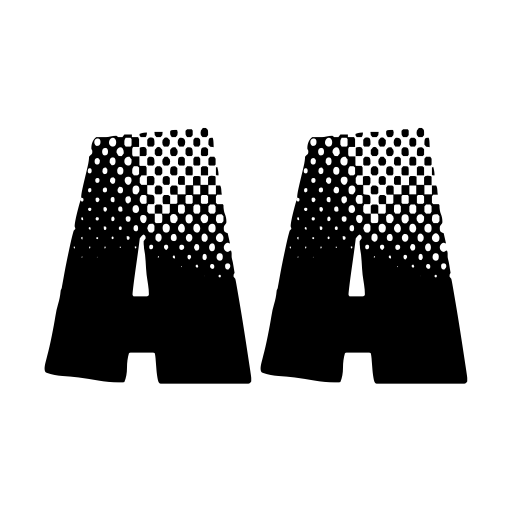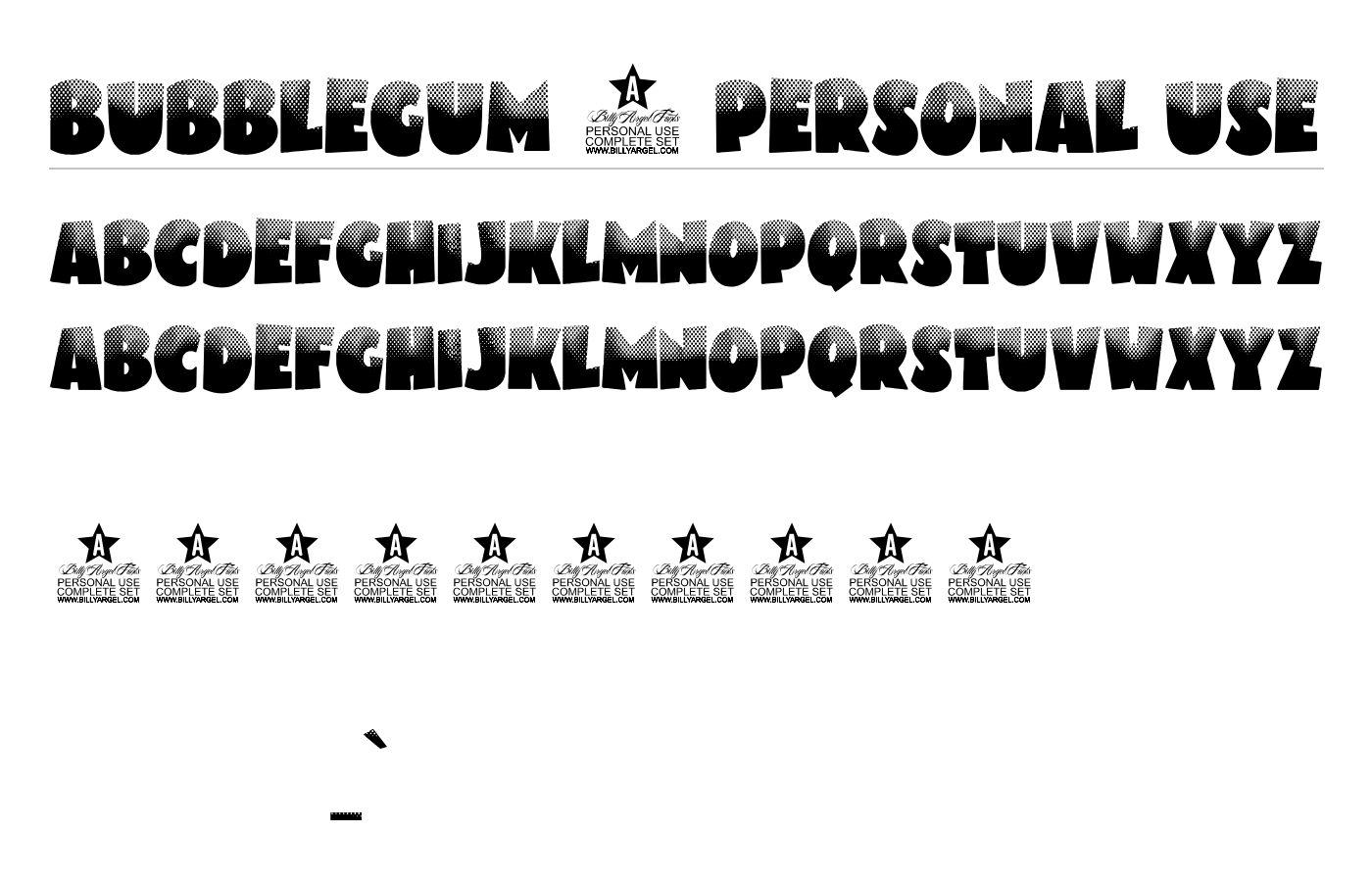
Bubblegum 2 is a bold, playful display font characterized by its chunky, rounded letterforms and a distinctive halftone gradient that adds a fun, retro comic-book vibe. Perfect for eye-catching headlines and creative projects, this font brings an energetic, youthful personality ideal for posters, branding, and designs targeting a vibrant, casual audience. Its all-caps style emphasizes impact and whimsy, making it a great choice for informal, dynamic visual communication.
BUBBLEGUM 2 PERSONAL USE Font
About BUBBLEGUM 2 PERSONAL USE Font
| Font family | BUBBLEGUM 2 PERSONAL USE Font |